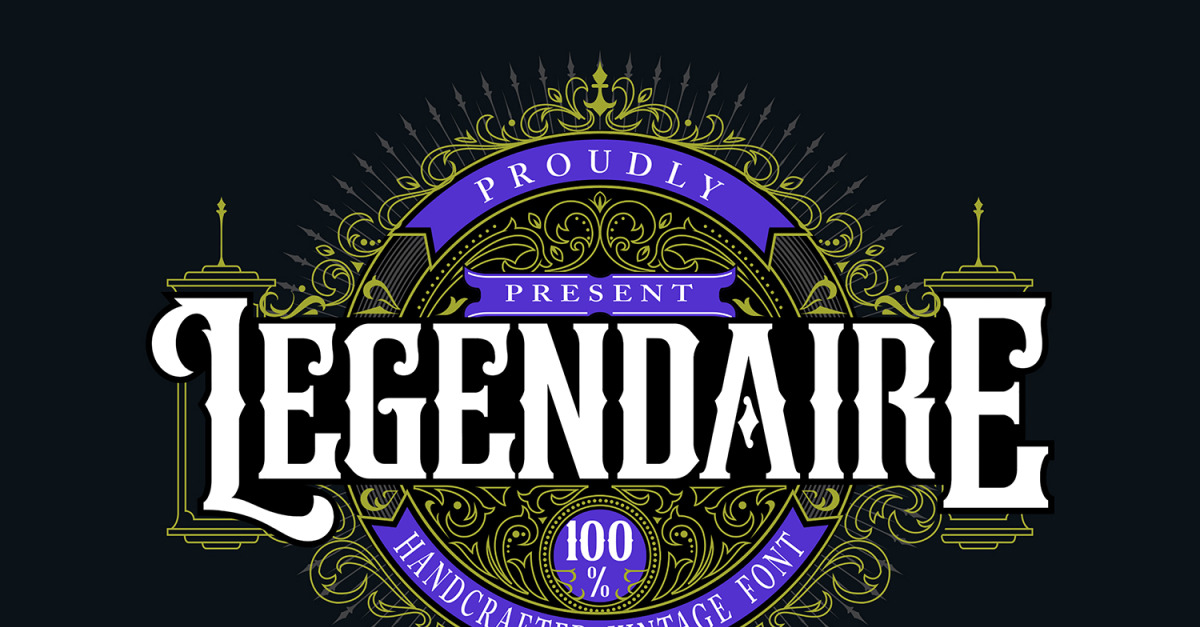
Legendarie | Handcrafted Vintage Font
**Legendarie | Handcrafted Vintage Font** with a calligraphy style, So beautiful on invitation like greeting cards, branding materials, business cards, quotes, posters, and more!